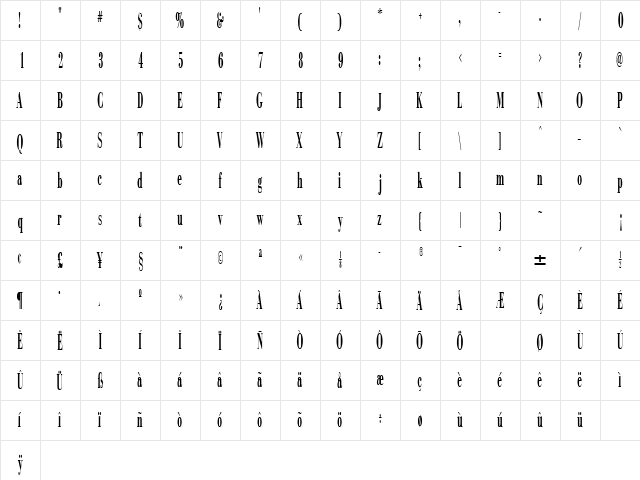
SinemaDisplayExtraCondSSK Regular
Design Context for SinemaDisplayExtraCondSSK Typeface
SinemaDisplayExtraCondSSK brings ornamental detail and strong personality to headlines and identities, where visual impact matters more than quiet functionality.
Font Pairing: Pair with a clean neutral sans-serif for body copy to let SinemaDisplayExtraCondSSK's character lead without overwhelming the composition.
Pro Tip: Treat SinemaDisplayExtraCondSSK as the centrepiece of your typographic hierarchy. One strong heading set in a decorative face can carry an entire layout.